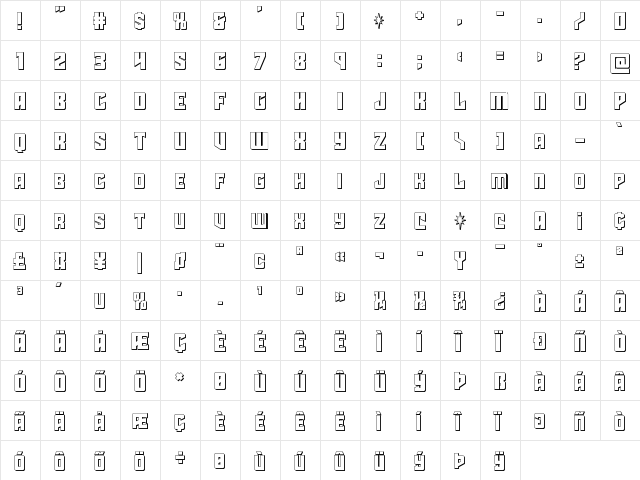
Star Guard 3D Regular
Design Context for Star Guard 3D Typeface
Star Guard 3D is a composed and adaptable typeface that performs quietly and consistently across a wide range of design contexts.